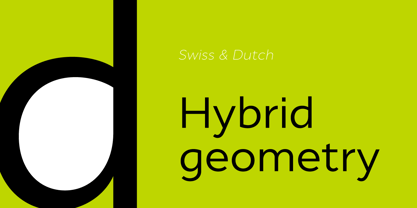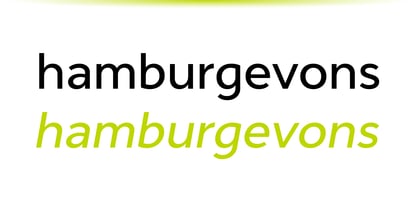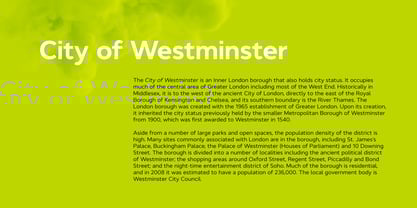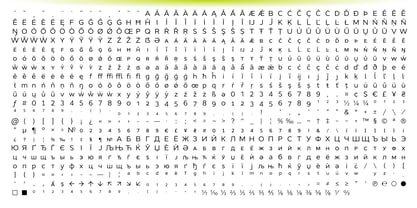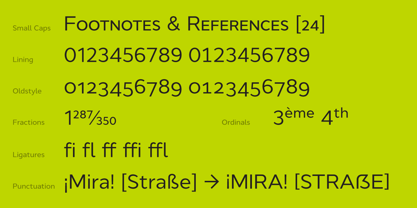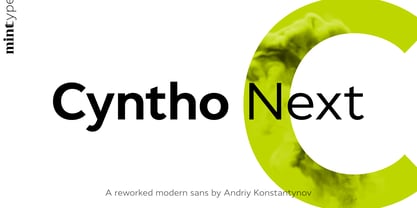
Cyntho Next Font
Cyntho Next Font is perfect for futuristic branding projects, innovative tech startups, cutting-edge web design, progressive app interfaces, next-generation marketing materials, advanced corporate presentations, evolutionary packaging design, forward-thinking editorial layouts, revolutionary digital platforms, and pioneering communication systems.
What makes Cyntho Next Font so exciting is its visionary design that represents the next evolution of contemporary typography, combining advanced aesthetics with superior functionality to create the ultimate modern communication tool. This revolutionary typeface embodies typographic innovation and future-forward thinking, delivering typography that defines tomorrow's design standards today.
The Cyntho Next Font family includes thin, light, regular, medium, bold, and black weights, complete with futuristic design features, evolutionary styling options, and next-generation characteristics that provide designers with comprehensive tools for creating revolutionary and memorable typography that pioneers the future of design.
The futuristically engineered letterforms of Cyntho Next Font showcase evolutionary elegance with pioneering character that creates instant recognition of innovation and next-generation quality. Each character displays meticulous attention to maintaining the advanced precision that defines future-forward design while ensuring superior readability and professional versatility. The font's revolutionary construction and evolutionary spacing contribute to its futuristic appearance and pioneering appeal.
Innovative brands and future-focused organizations consistently choose Cyntho Next Font for projects requiring cutting-edge aesthetics and evolutionary sophistication. The comprehensive character set includes uppercase and lowercase letters, numerals, extensive punctuation, international accents, and futuristic elements that provide complete support for next-generation branding applications and revolutionary design compositions.
The visionary versatility of Cyntho Next Font ensures exceptional performance across both current platforms and emerging digital technologies. Whether developing pioneering brand identities, creating evolutionary marketing campaigns, or designing next-generation interface systems, this remarkable typeface delivers consistent innovation that resonates with audiences embracing the future of communication and design.